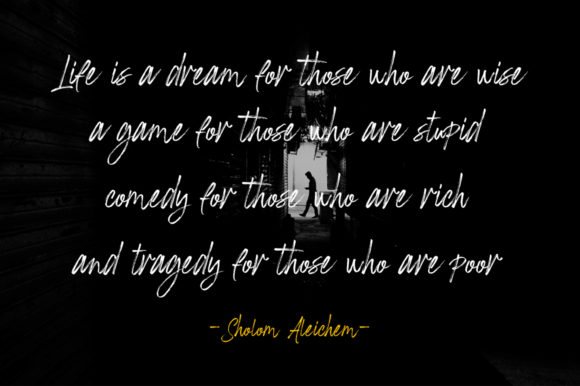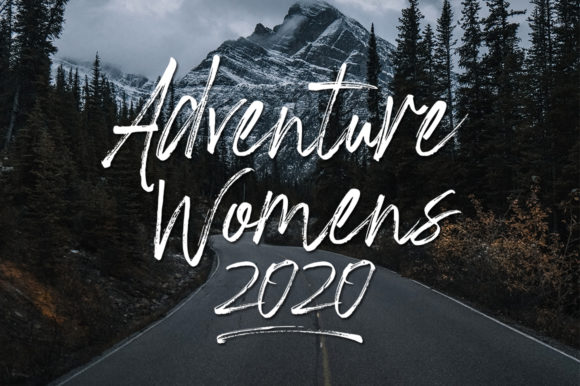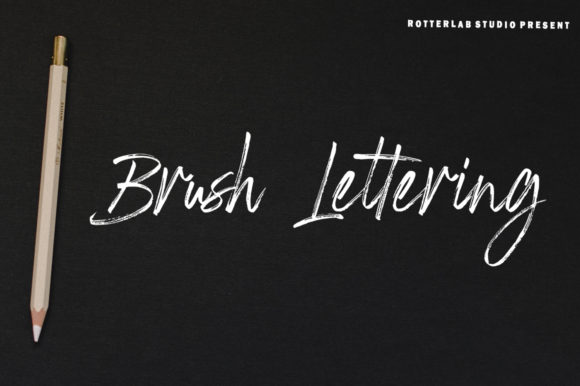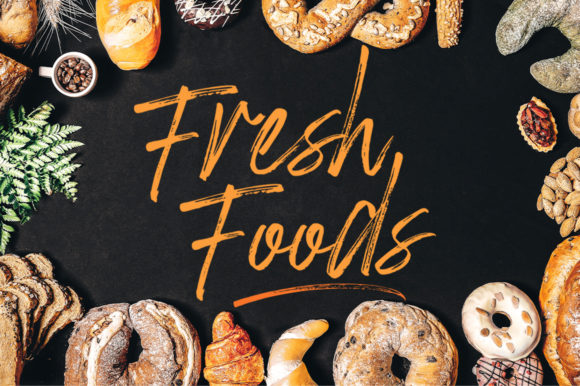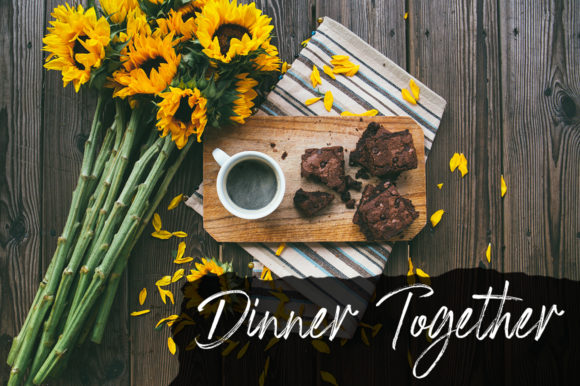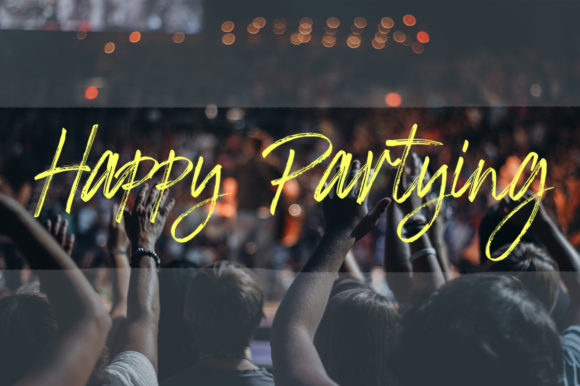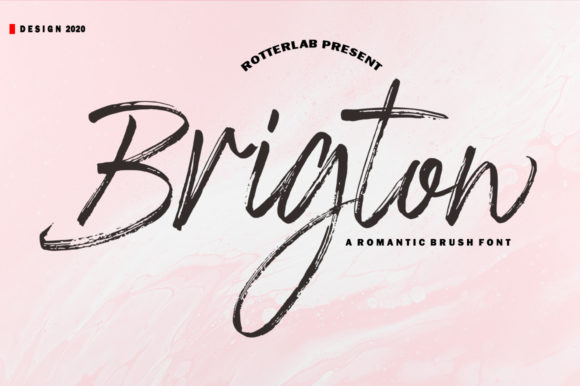
The Brigton Font: A Timeless, Handwritten Masterpiece
I’ll never forget the moment I stumbled upon the Brigton font. I was working on a project for a client who wanted a elegant, yet playful touch. I had spent hours scouring the internet for the perfect font, but nothing seemed quite right. That was until I saw Brigton – a beautiful, flowing handwritten font that instantly captured my attention. Its elegant touch and distinct style won me over, and I knew I had found the perfect fit for my project.
- ✨ Elegant and sophisticated: Brigton exudes a sense of refinement and poise, making it perfect for high-end projects.
- ✅ Highly legible: Despite its elegant nature, Brigton remains easy to read, even at smaller font sizes.
- ✨ Versatile: Whether you’re designing a logo, creating a social media graphic, or crafting a beautiful wedding invitation, Brigton adapts seamlessly.
Of course, no font is perfect, and Brigton has a few minor quirks to consider:
- ⚠️ Limited availability of certain characters: As with any font, some characters may be less common or require additional setup.
- 🤔 May not be suitable for very long documents: While Brigton is beautiful, its elegant nature may not be the best fit for lengthy texts or body copy.
- Experiment with OpenType features, such as ligatures and stylistic alternates, to add an extra layer of creativity to your design.
- Explore the full range of OpenType features, including glyphs and stylistic alternates, to unlock Brigton’s full creative potential.
- Use the font’s built-in features, such as ligatures and stylistic alternates, to add visual interest to your document.
The Story Behind Brigton
While the true story behind Brigton’s creation may be unknown, it’s easy to imagine that it was crafted by a designer with a passion for elegant, handwritten typography. Perhaps they drew inspiration from classic calligraphy or the flowing scripts of the past. Whatever the inspiration, Brigton is a true masterpiece that deserves to be celebrated.
| Font Name | Brigton Font |
| What makes Brigton so special? | Brigton’s unique blend of elegance and playfulness makes it a standout font. Its flowing script and refined lines create a beautiful, timeless look that’s perfect for a wide range of projects. |
| Is Brigton suitable for body copy? | While Brigton is beautiful, its elegant nature may not be the best fit for lengthy texts or body copy. However, it’s perfect for headings, titles, and short paragraphs. |